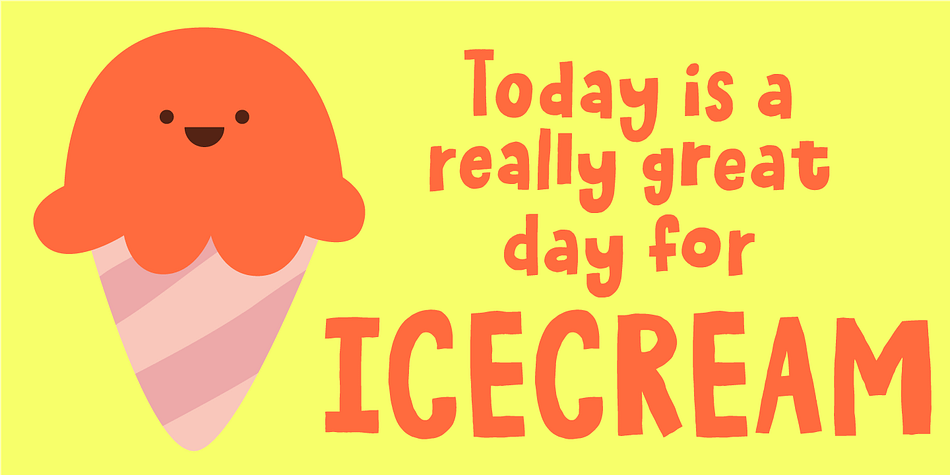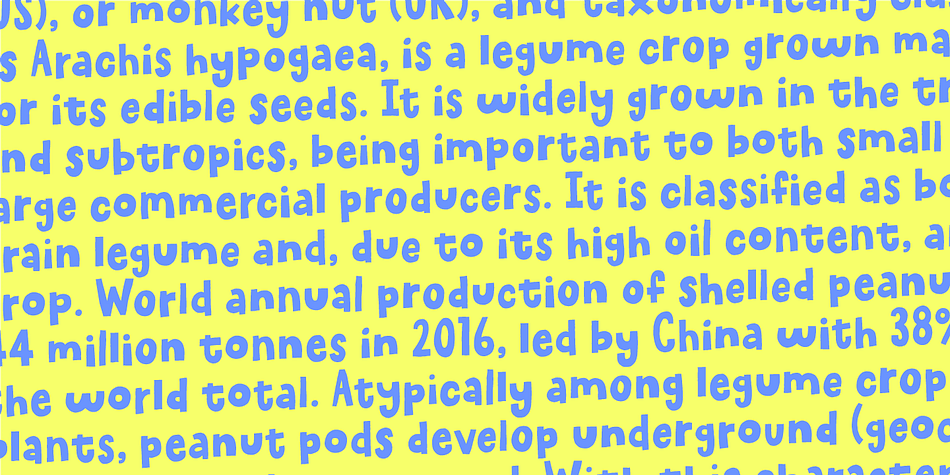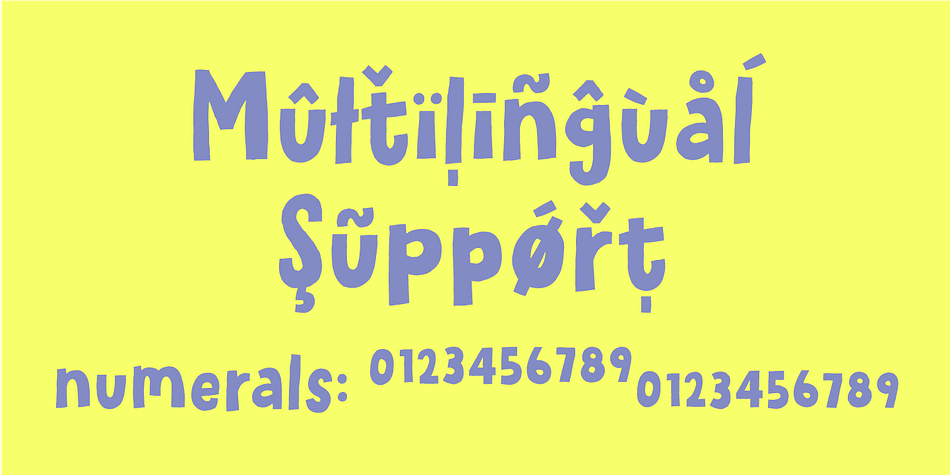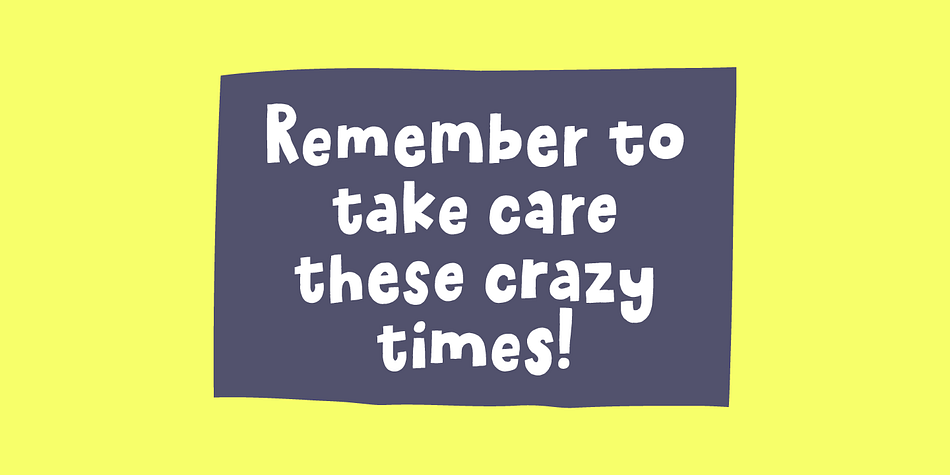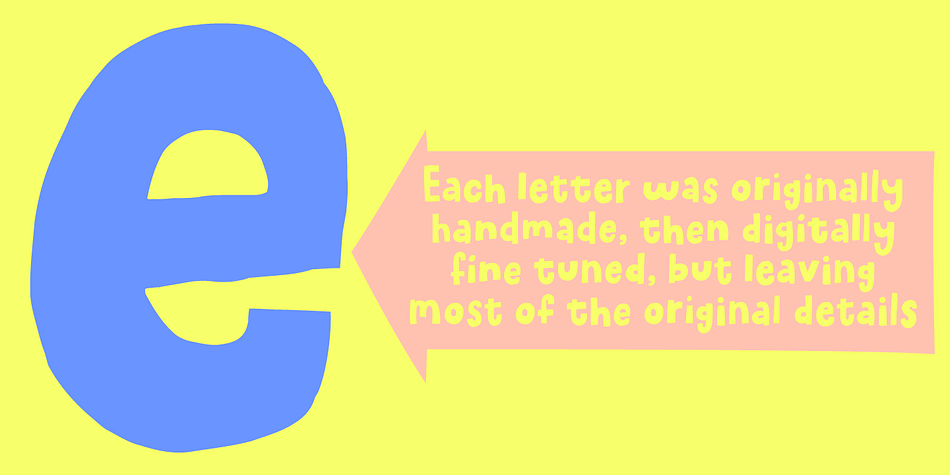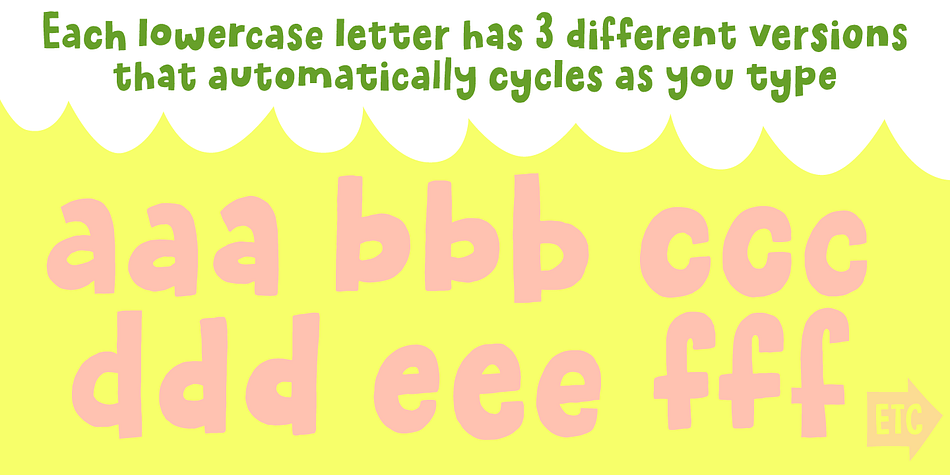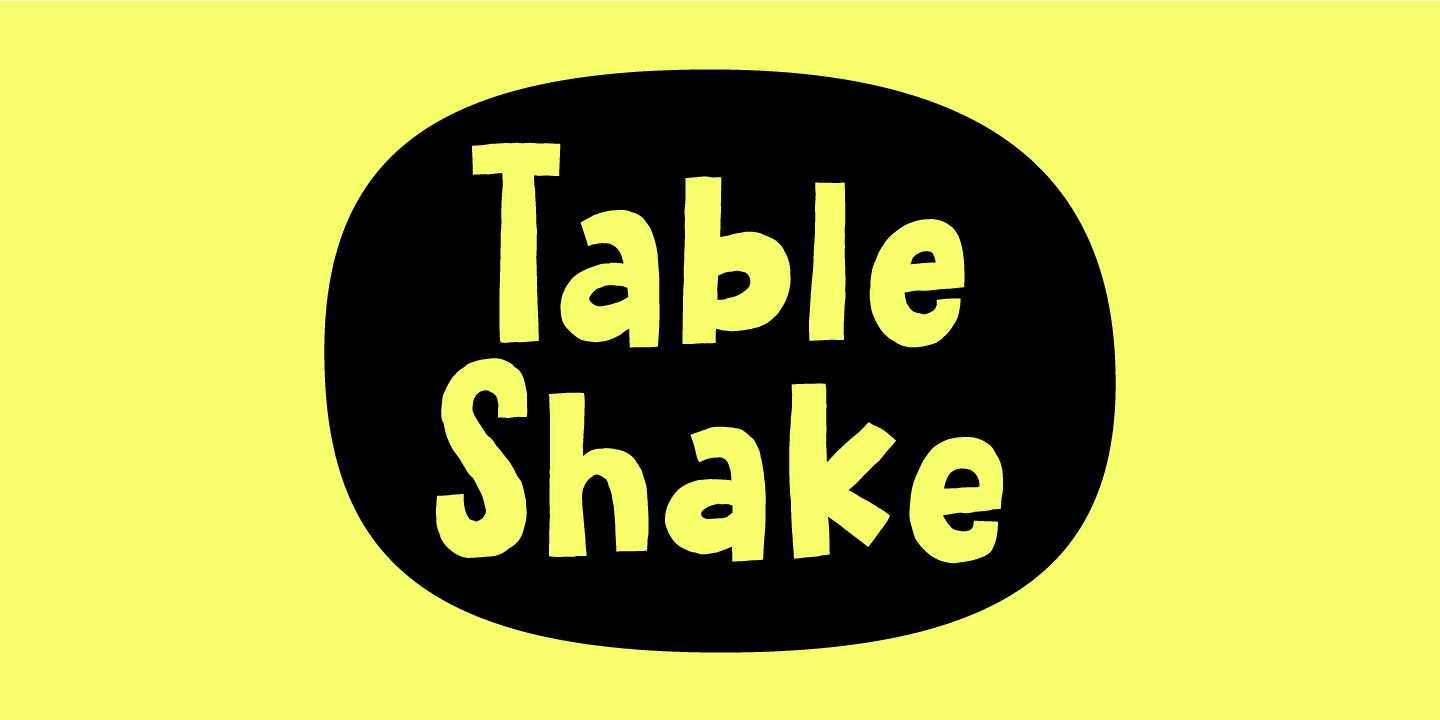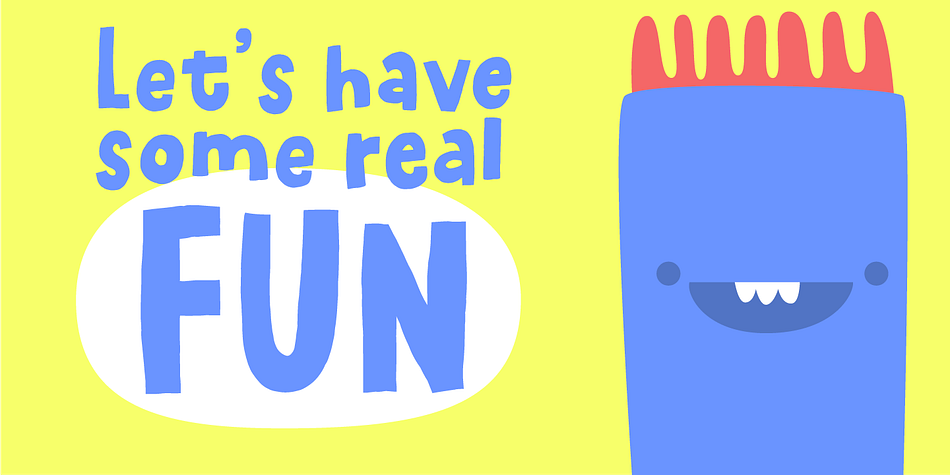
Table Shake
Designed by Jakob Fischer, Table Shake is a hand display and hand drawn font family. This typeface has two styles and was published by Pizzadude.dk.
Table Shake is somewhat like sunshine after a cloudy day: It puts a smile on your face and makes your trouble seem easier to overcome. Table Shake handmade, yet digitally re-organized, but leaving the organic handmade details. Maybe it is that particular font that makes your designs blow into space with happiness! I’ve added 3 different versions of each lowercase letter, and they automatically cycle as you type.